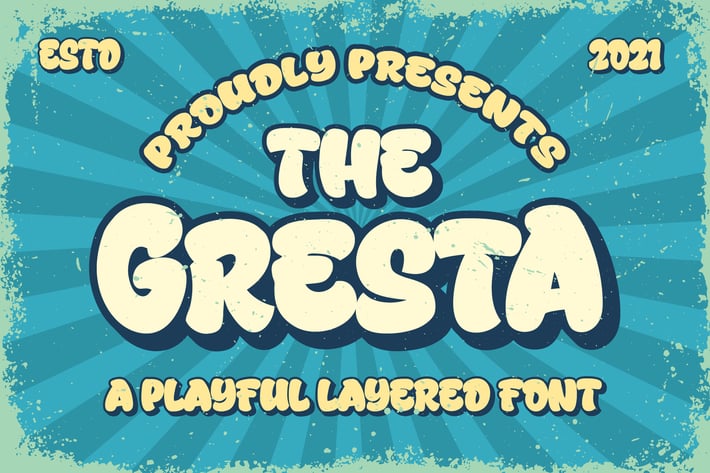
Greasta a Playful Layered Font
Introducing of our new product the name is Gresta a Playful Layered Font, Gresta inspired by Playful style with a fun theme very good for Retro, kids and playful theme design.